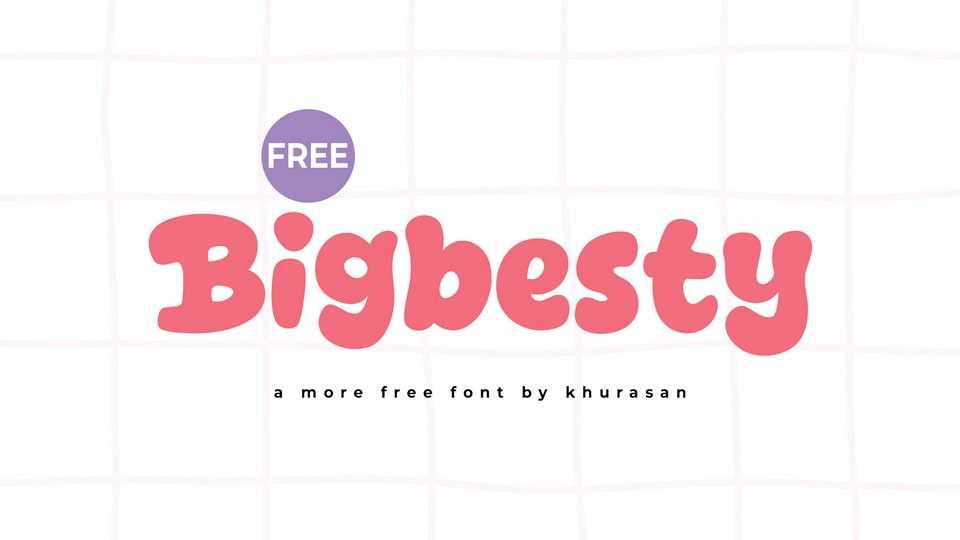
Download Bigbesty font, a bold and playful display typeface crafted to add warmth and fun to your designs. Its rounded, chunky letterforms give off a friendly and approachable vibe.